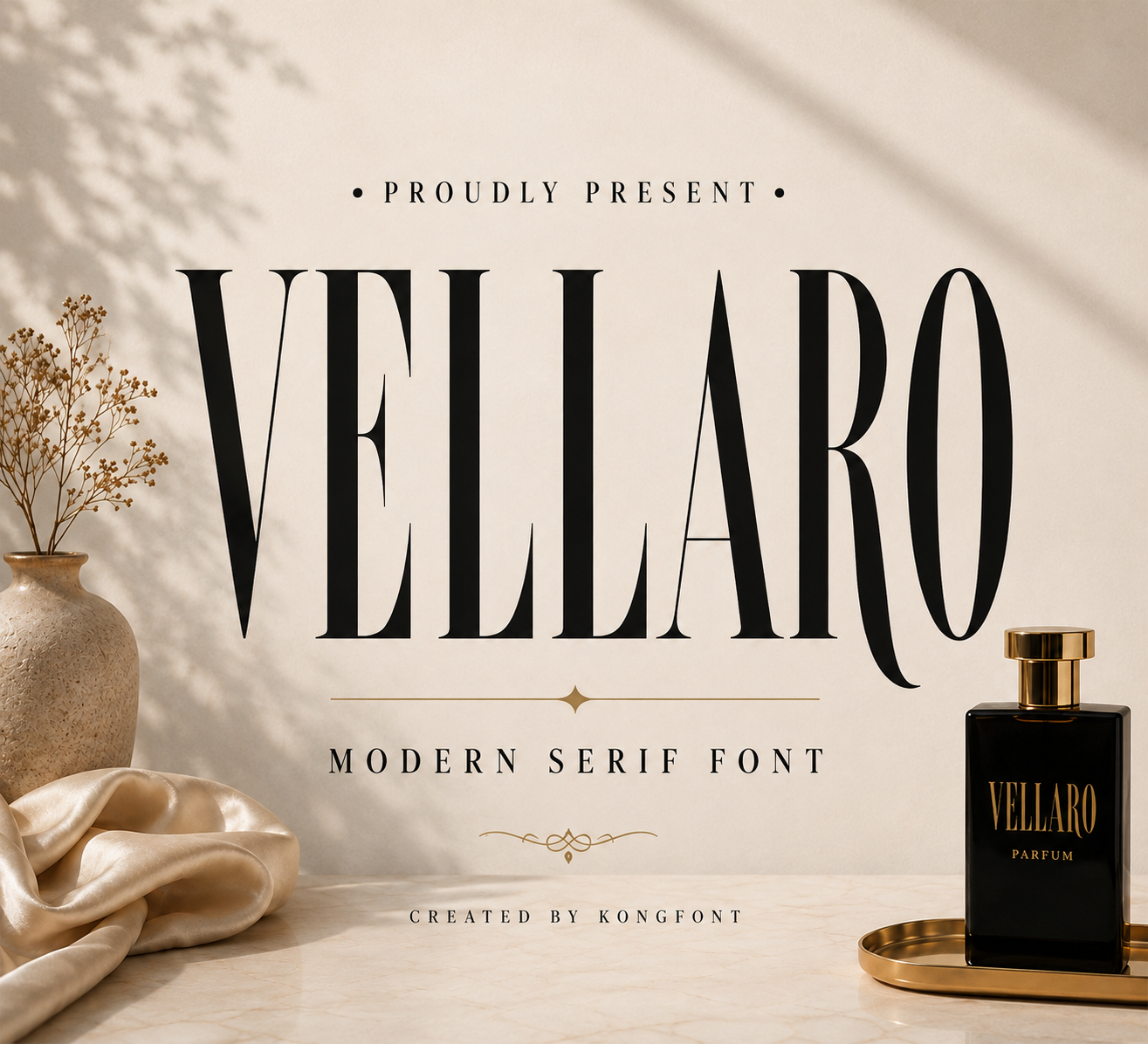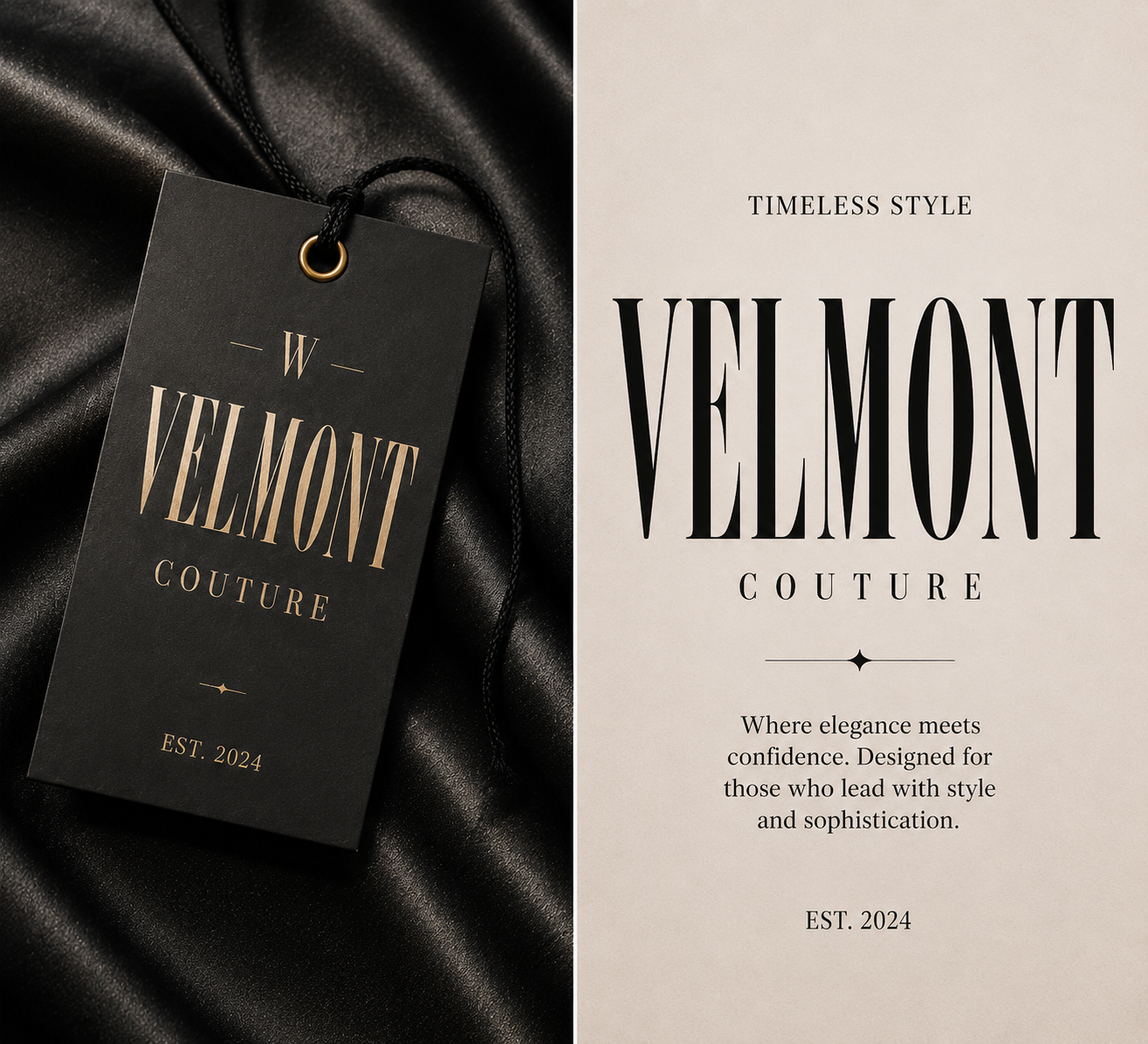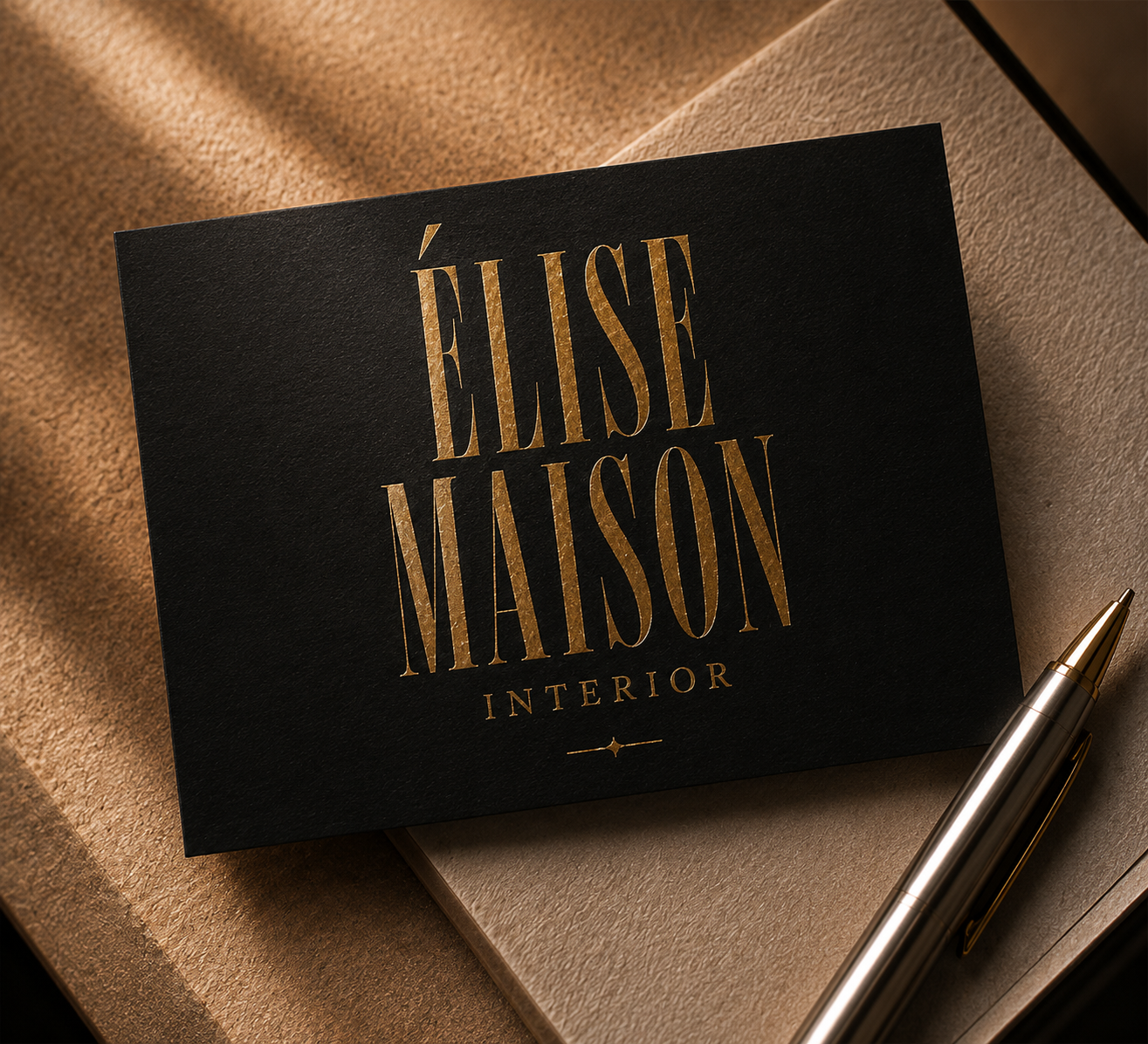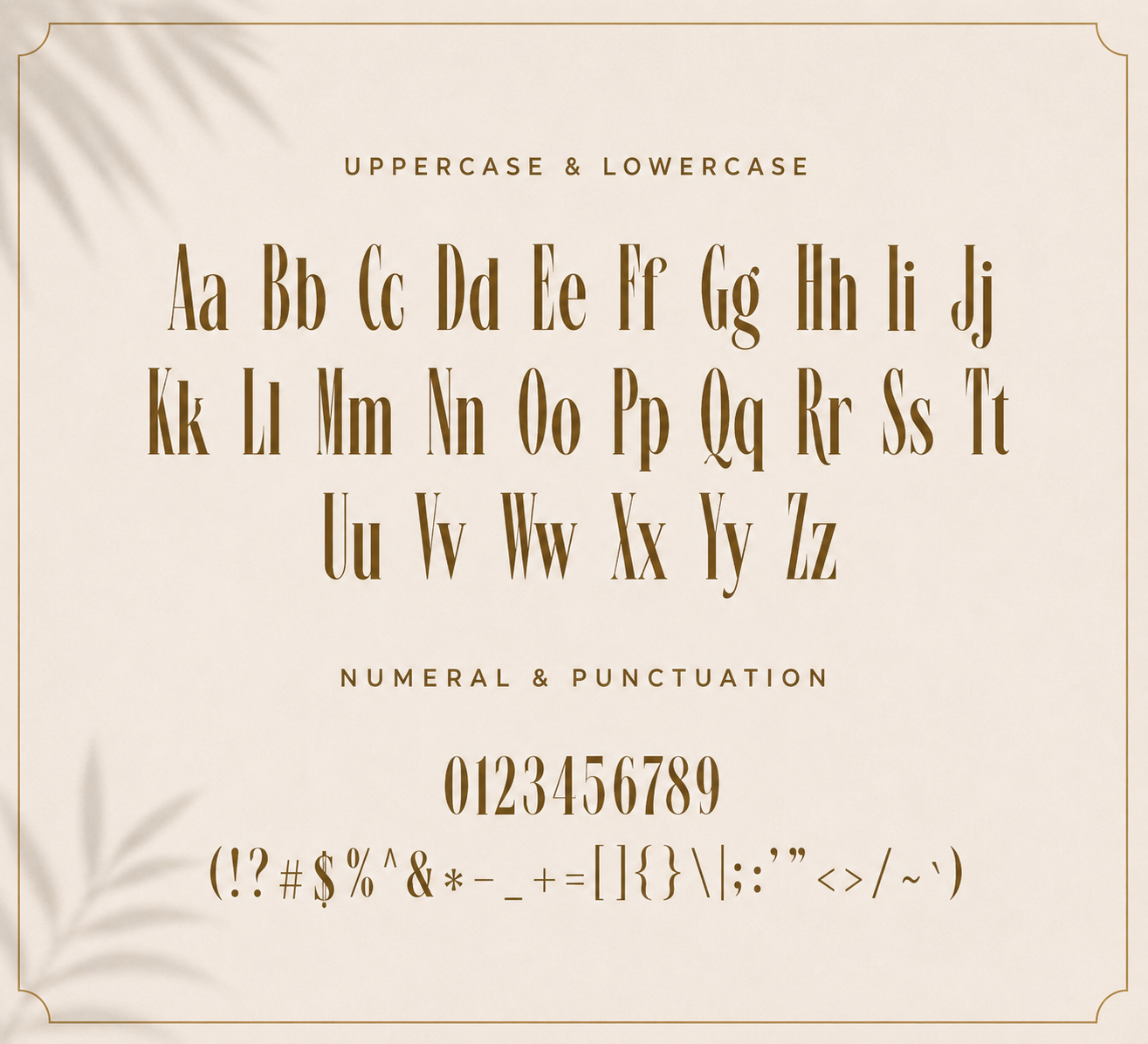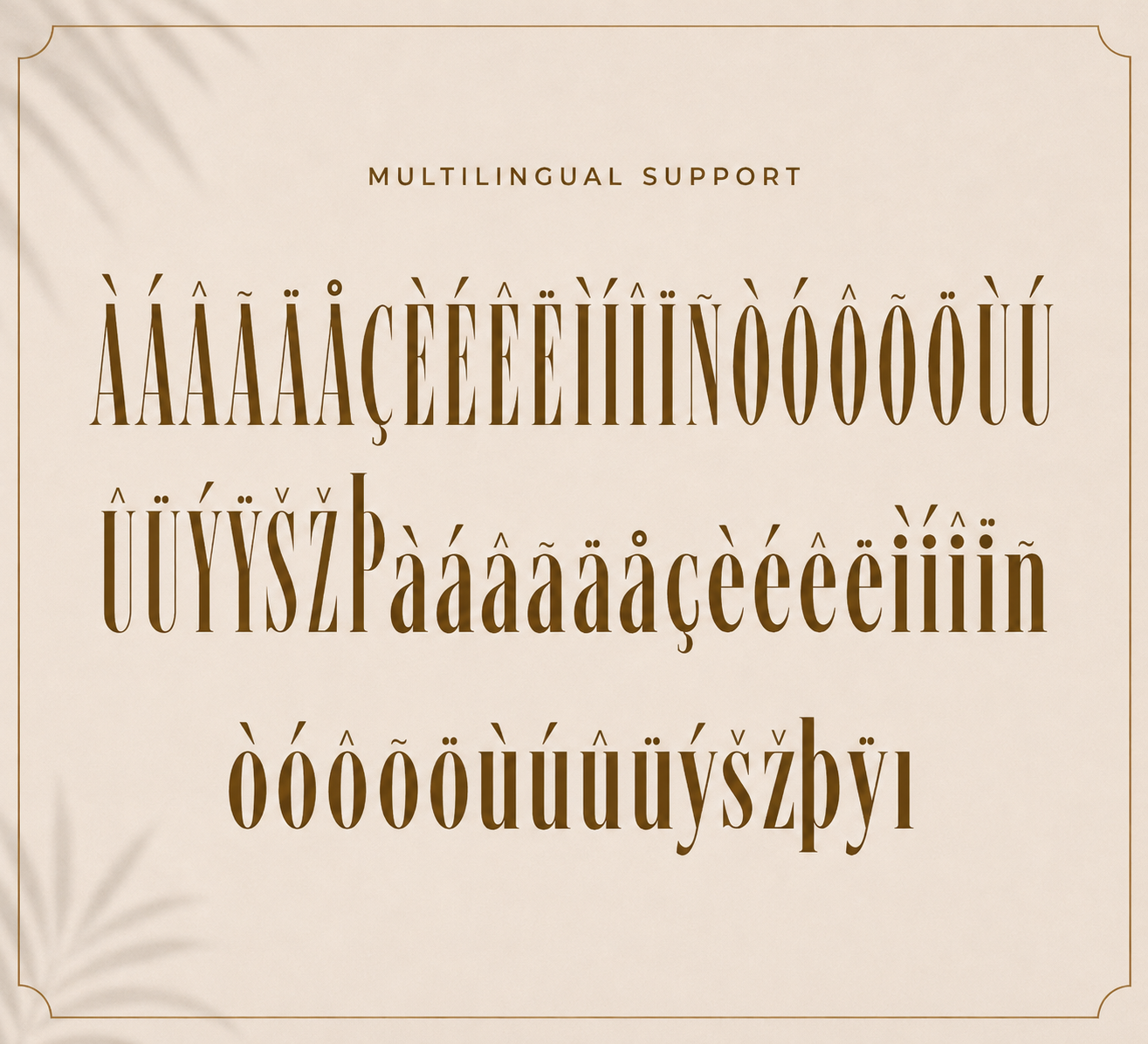
Vellaro is a sophisticated modern serif font with elegant curves, refined proportions, and stylish high-contrast details. Its clean and luxurious look makes it perfect for premium branding and editorial designs.
Ideal for:
• Luxury logos
• Fashion branding
• Magazines
• Editorial layouts
• Perfume & cosmetic packaging
• Wedding invitations
• Jewelry branding
• Beauty products
• Hotel identities
• Premium packaging